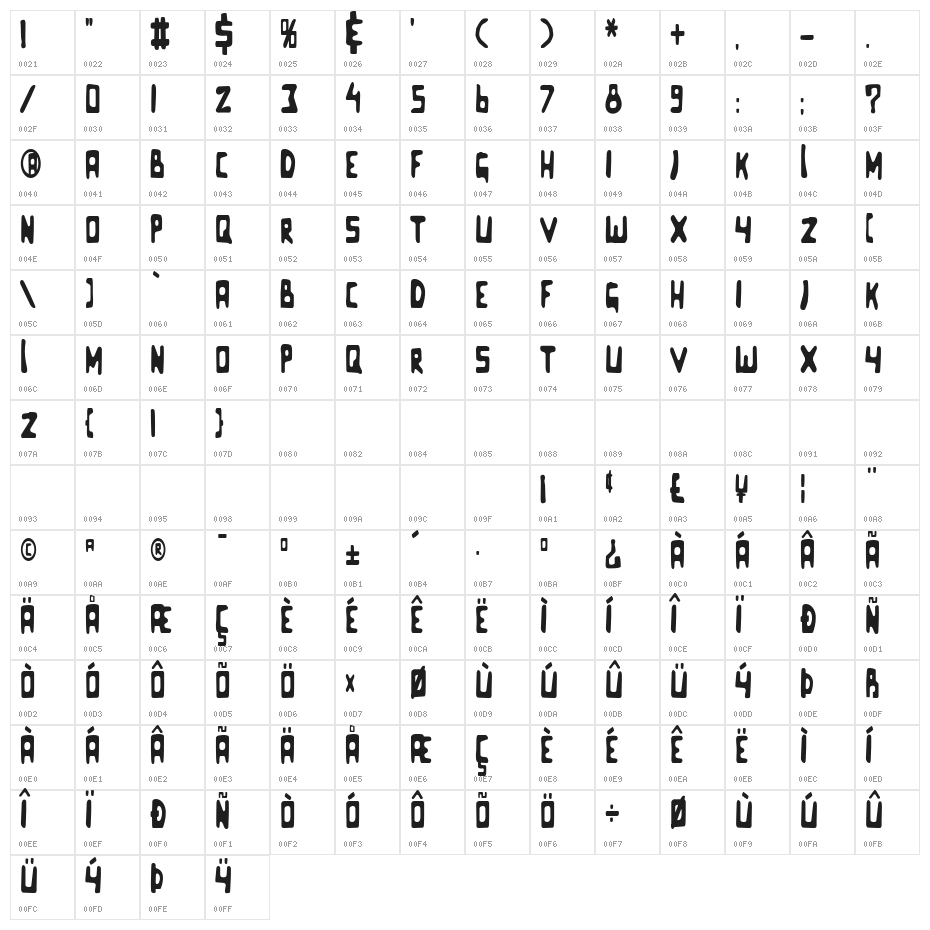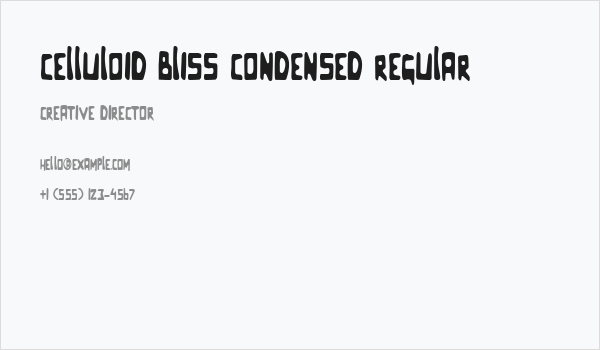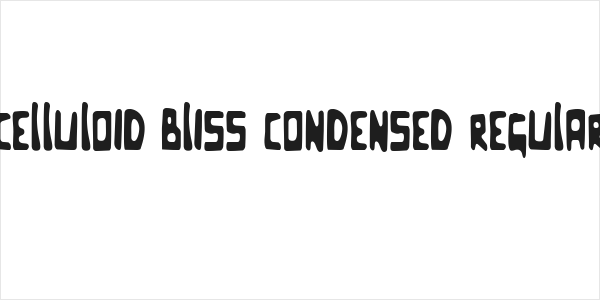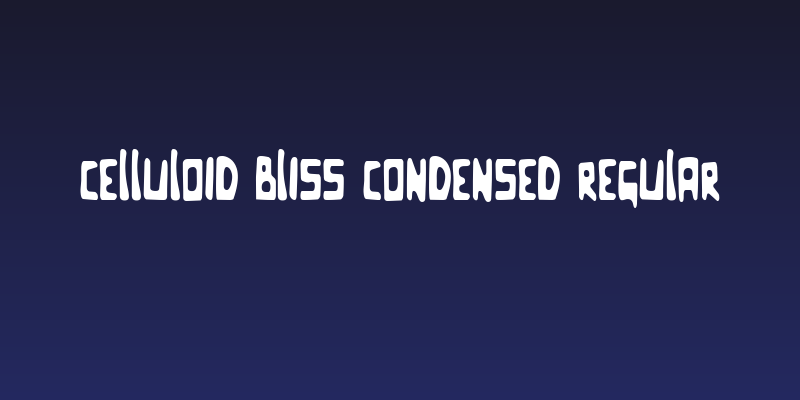
Celluloid Bliss Condensed Regular Font
Celluloid Bliss Condensed Regular Description
This font features a bold and playful design with a condensed structure. The characters are rounded and have a slightly irregular shape, giving them a whimsical and artistic feel. The uppercase and lowercase letters maintain a consistent style, with a uniform thickness that adds to the boldness of the font. The numbers and special characters follow the same design principles, ensuring a cohesive look across all glyphs. This font's unique style makes it stand out, making it ideal for projects that require a touch of creativity and fun.
| Overall Style | Playful, Artistic |
| Proposed Projects | Ideal for children's books, playful branding, posters, and creative design projects. |